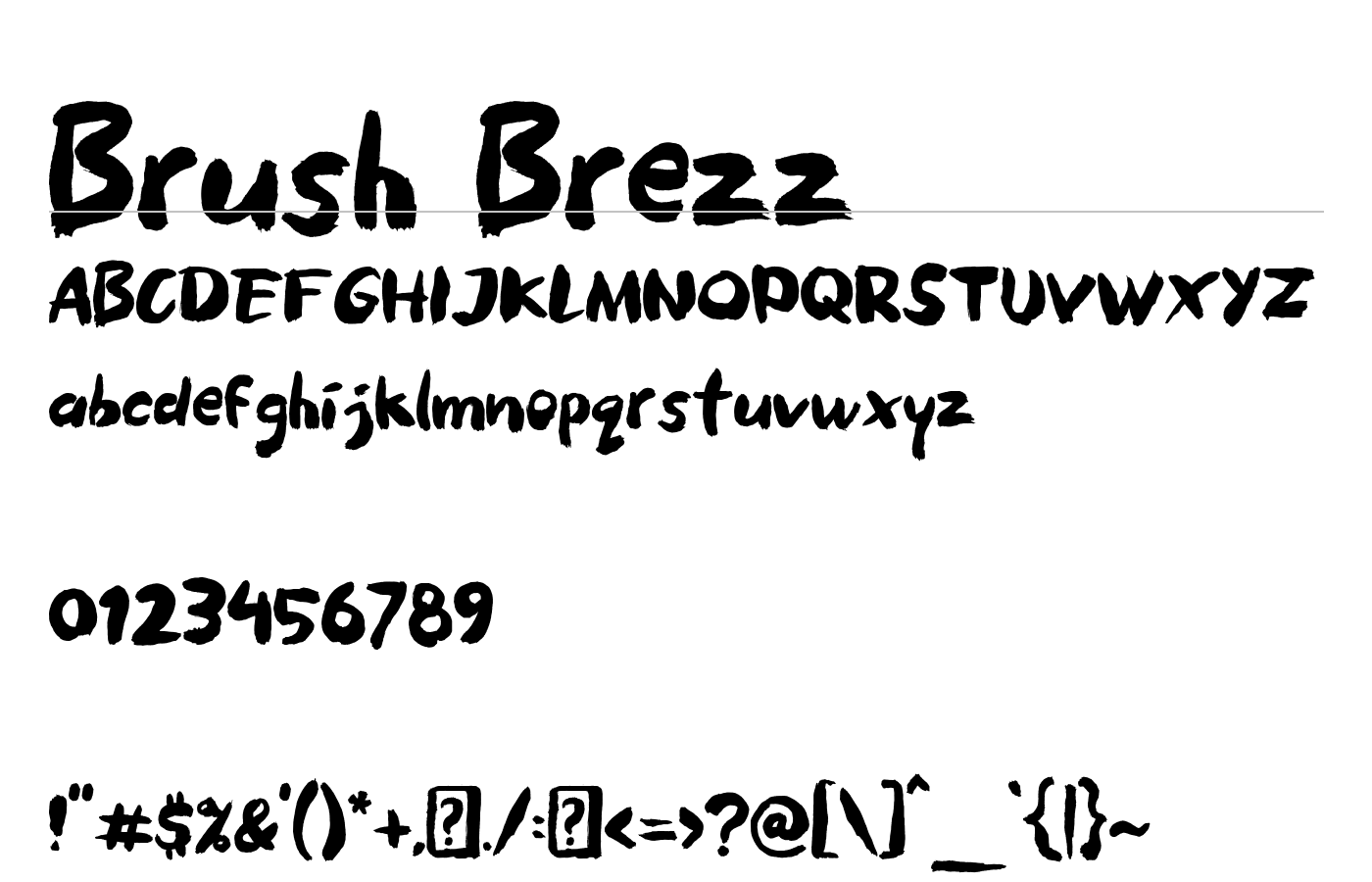
Brush Brezz is a bold, expressive brush script font with a textured, hand-painted feel that adds a lively and artistic touch to any design. Its irregular strokes and natural flow give it a casual, creative personality ideal for branding, posters, and packaging that want to convey energy and authenticity. This font works great in headlines or logos where a dynamic, handcrafted vibe is desired.
Brush Brezz Font
About Brush Brezz Font